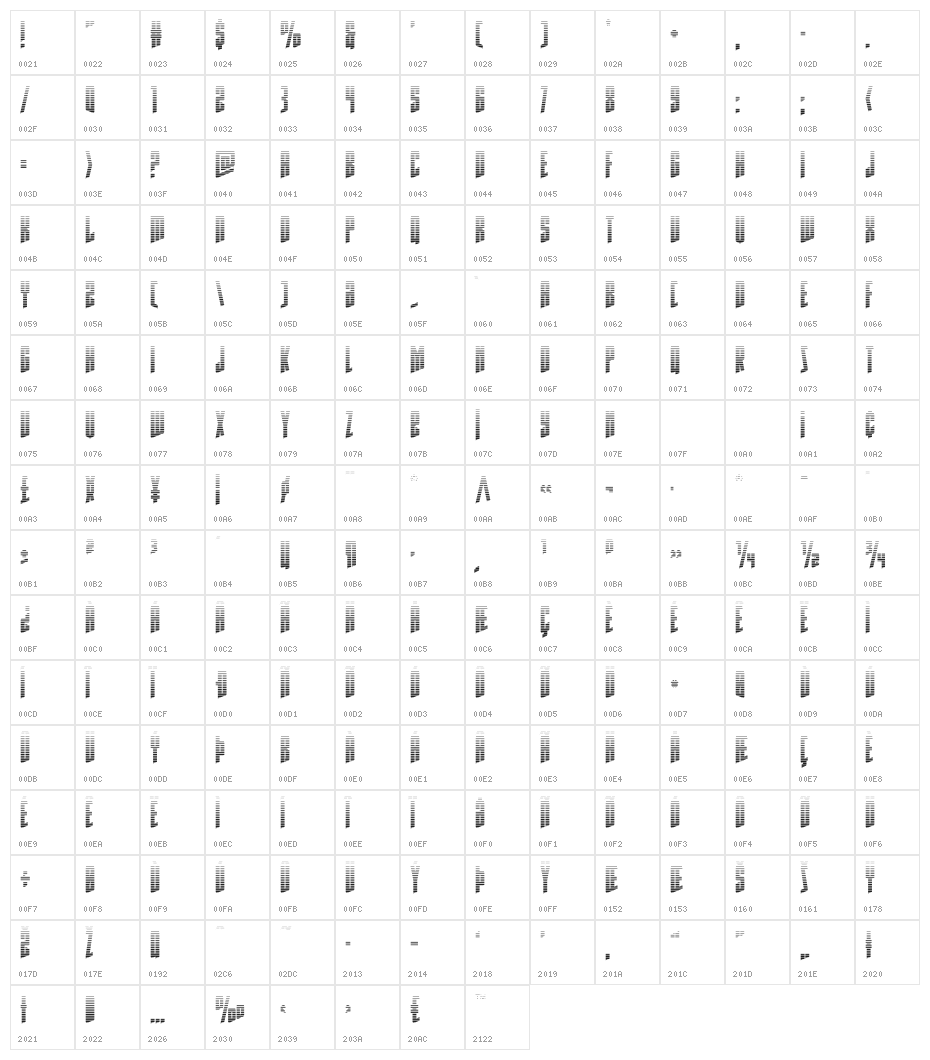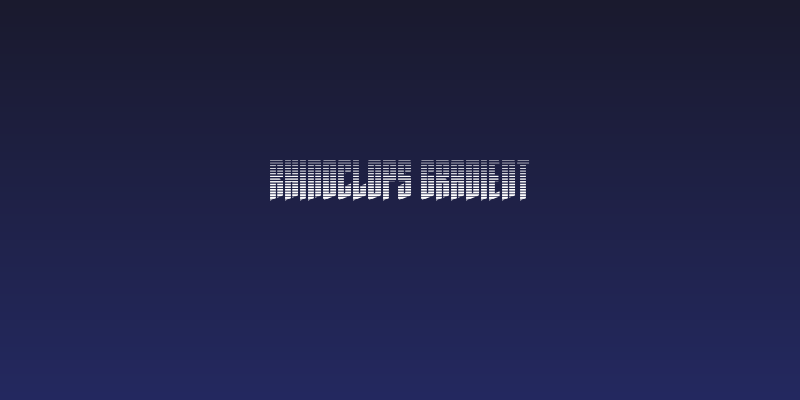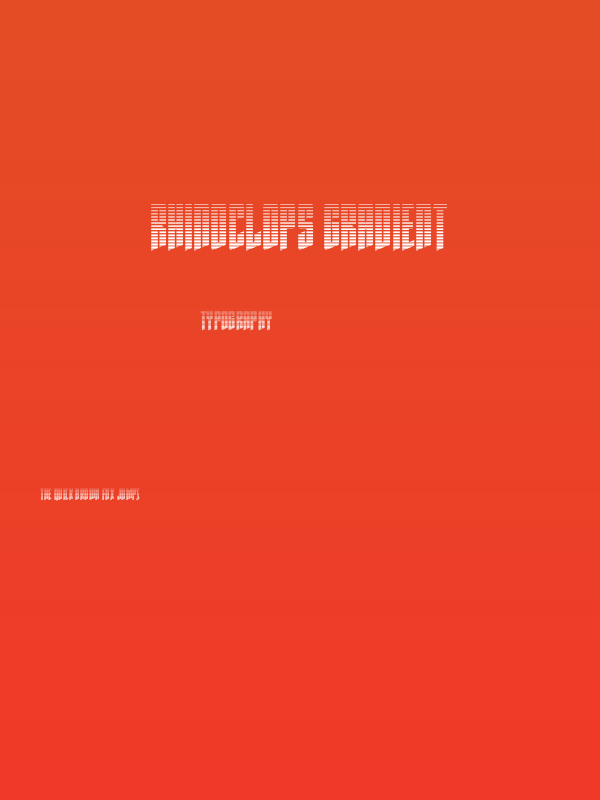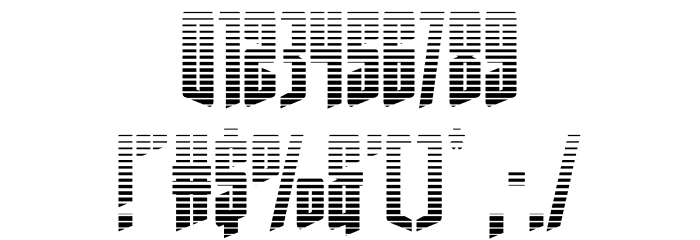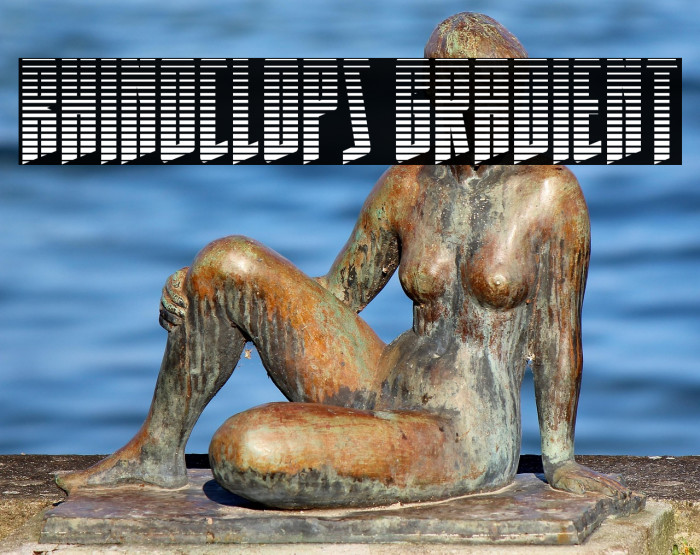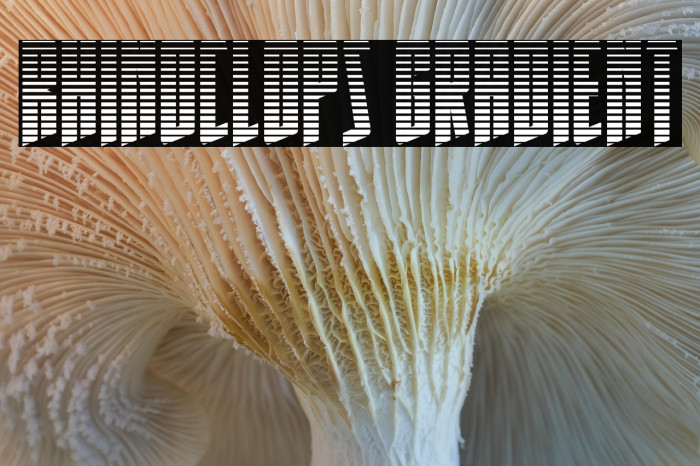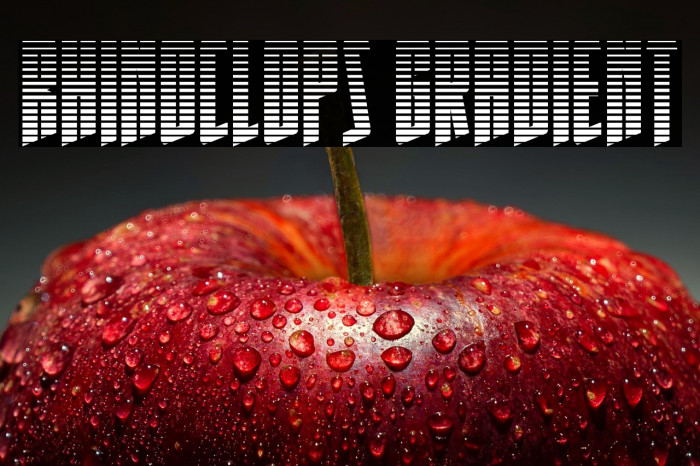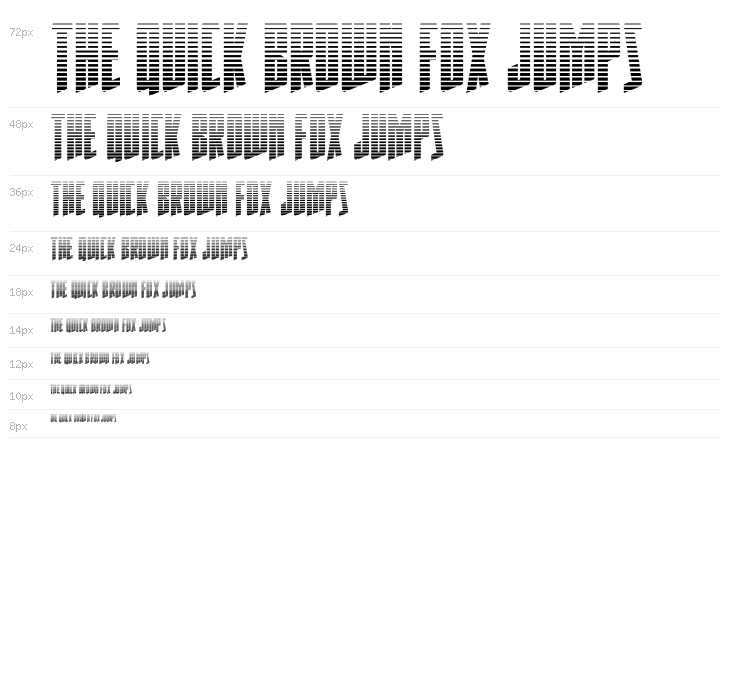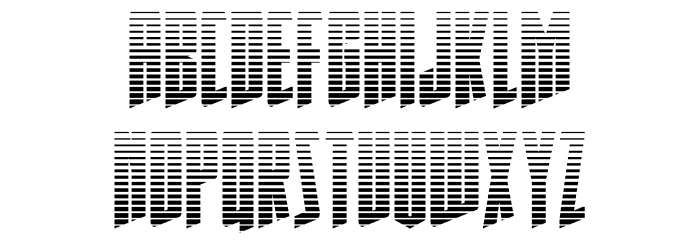
Rhinoclops Gradient Font
Rhinoclops Gradient Description
This font features a bold, futuristic design with a distinct gradient effect across each character. The letters are constructed with horizontal lines that create a sense of movement and depth, making it visually striking. The uppercase and lowercase letters maintain a consistent style, with sharp angles and a geometric structure. The numbers and special characters are designed to match the overall aesthetic, providing a cohesive look. This font's unique style is ideal for projects that require a modern and dynamic appearance.